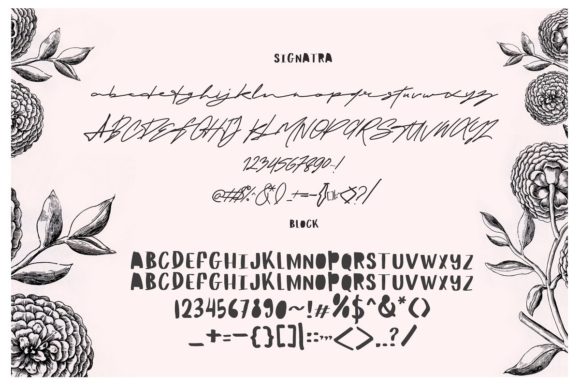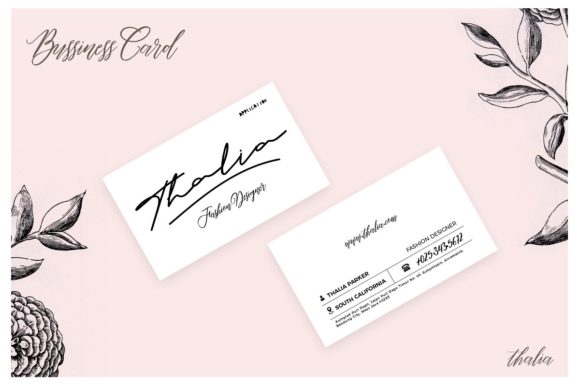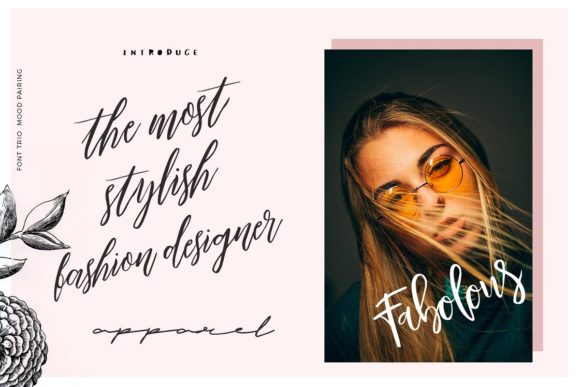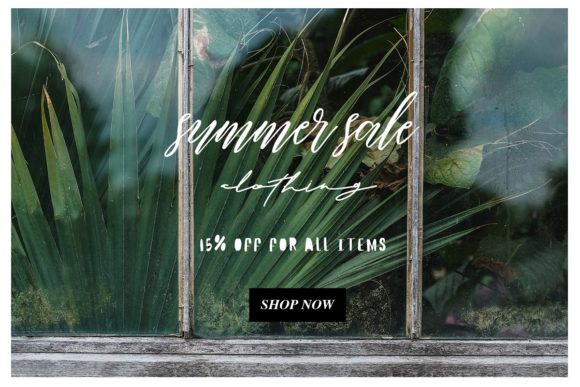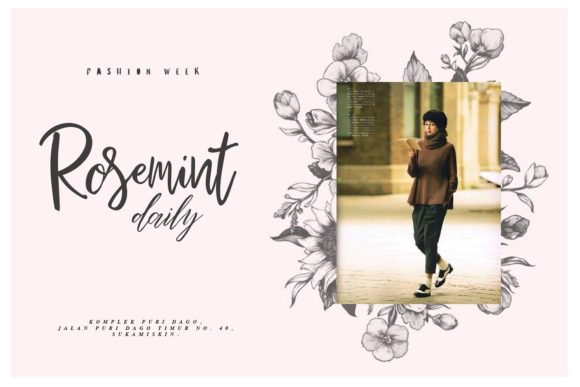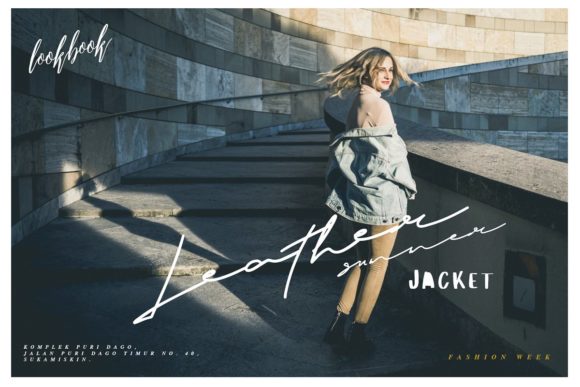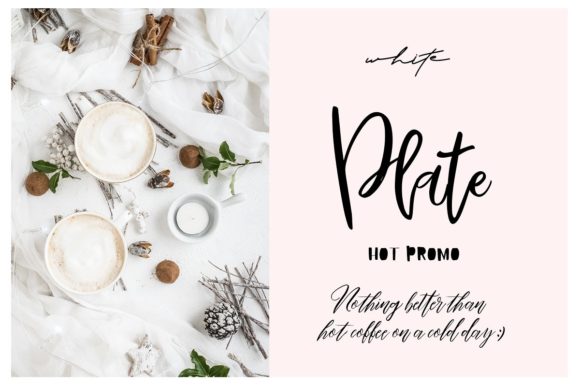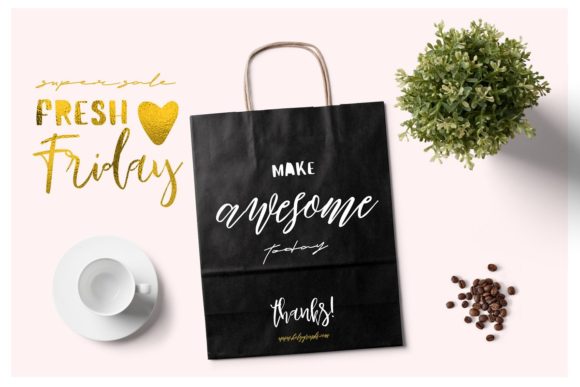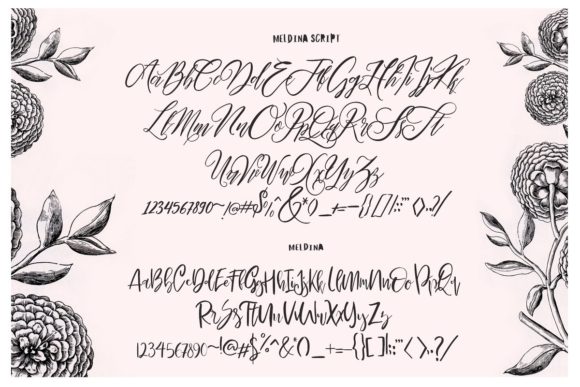
Maldina Font
About Maldina Font
Maldina is a lovely and modern handwritten font. It comes with four different styles, get inspired by its elegant look!